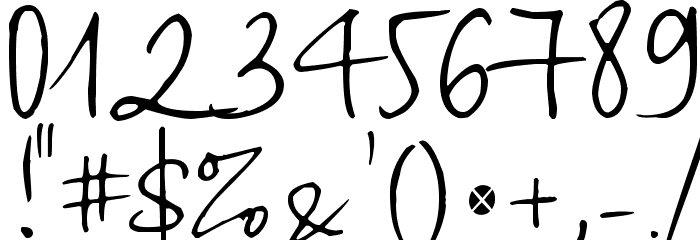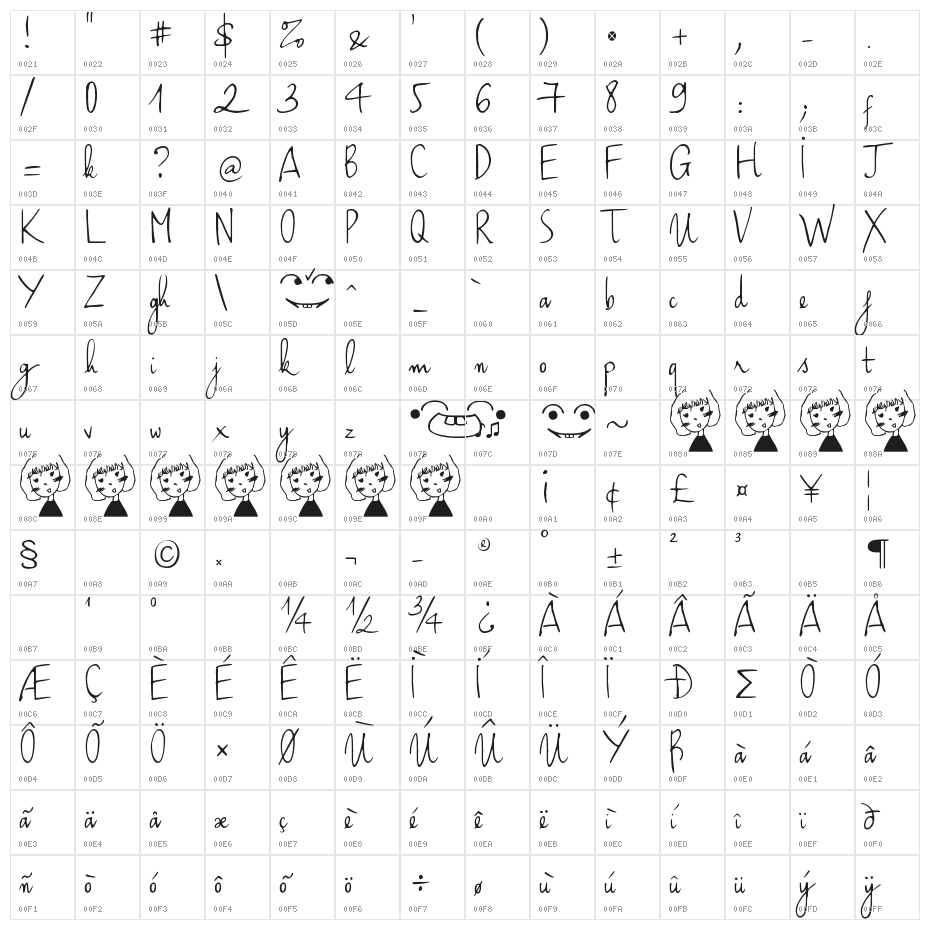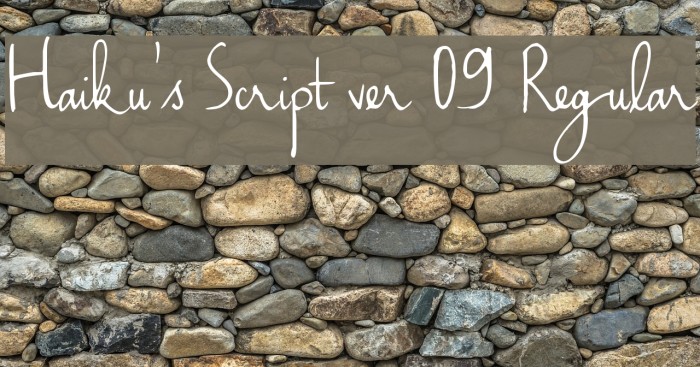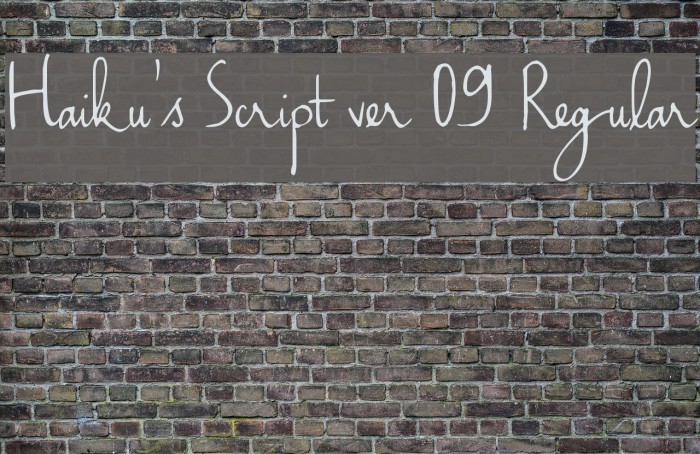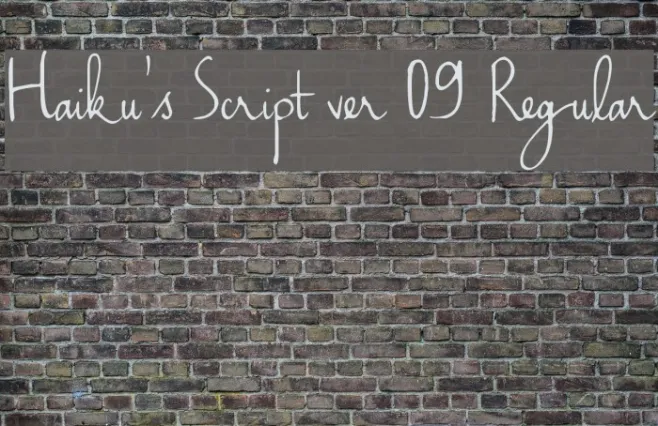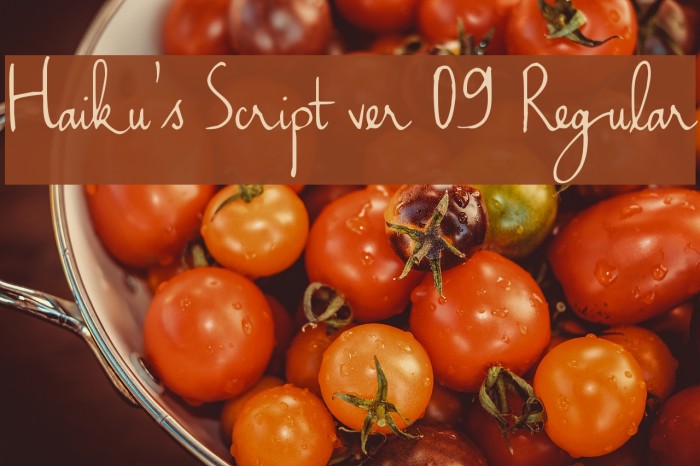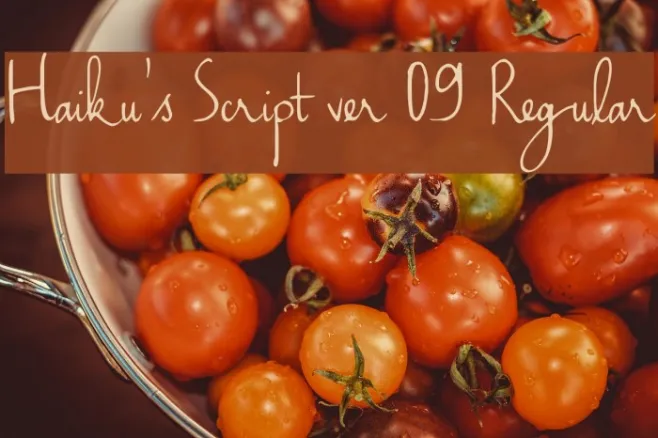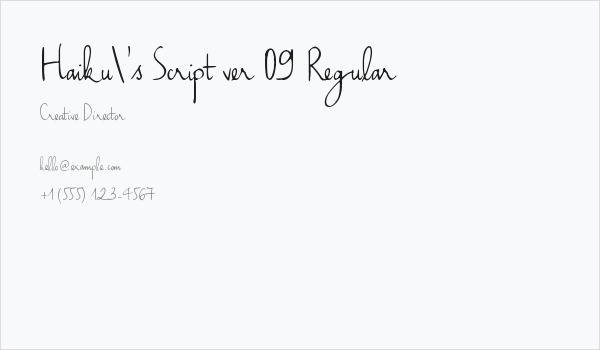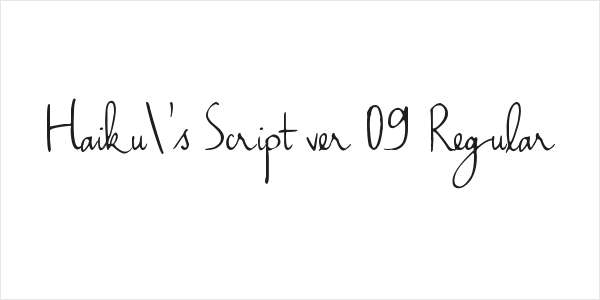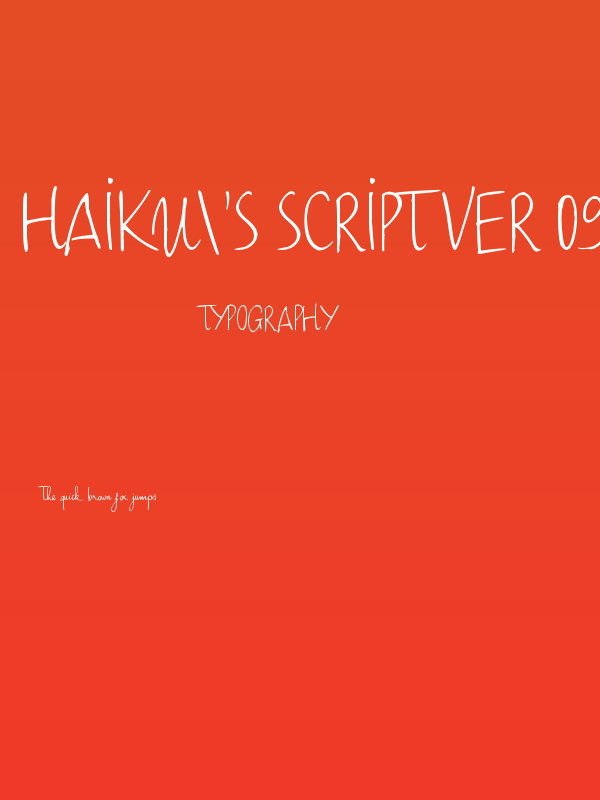
Haiku's Script ver 09 Regular Font
Haiku's Script ver 09 Regular Description
This font exudes a playful and artistic vibe, characterized by its handwritten style that mimics the fluidity and spontaneity of natural handwriting. The letters are slightly irregular, adding a personal touch that makes each character feel unique. The uppercase letters are bold and dynamic, while the lowercase letters maintain a consistent flow, enhancing readability. The numbers are distinct and easy to differentiate, and the special characters are creatively styled, complementing the overall aesthetic. This font is perfect for projects that require a personal, informal touch, such as invitations, greeting cards, or creative branding.
Overall StyleArtistic, Playful
Use CaseHeadlines, Creative projects, Informal text
Proposed ProjectsIdeal for invitations, greeting cards, creative branding, and artistic projects.